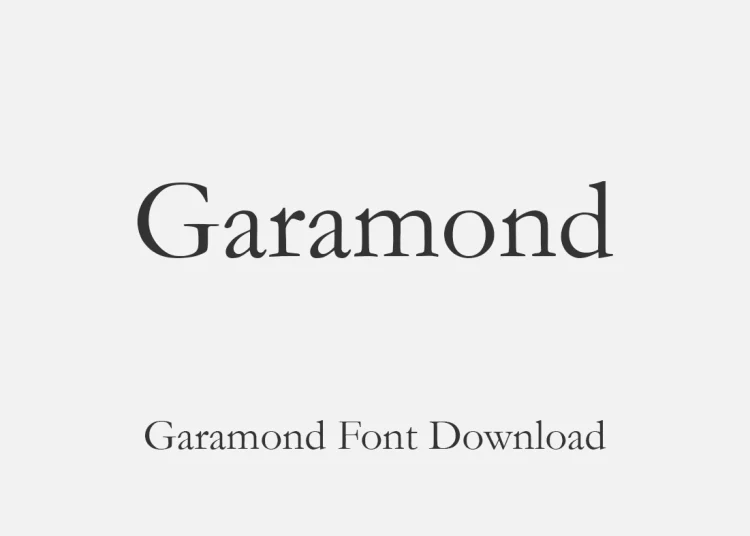
Garamond Font Family
Garamond is a classic family of serif typefaces that carries the name of Claude Garamond, the renowned 16th-century French engraver.
His work has profoundly influenced modern typography, and the Garamond typeface family remains one of the most recognized and widely used fonts, particularly favored for book printing and body text.
The typefaces within the Garamond family are inspired by the designs of Aldus Manutius, a Venetian printer from the late 15th century, and his punch cutter, Francesco Griffo. These designs, created in 1495, belong to what is now known as the “Old Style” category of serif fonts.
Characterized by fluid, naturalistic shapes that resemble handwriting, Garamond’s letterforms are slightly more upright and structured compared to true calligraphy, providing excellent readability and a timeless, elegant feel.